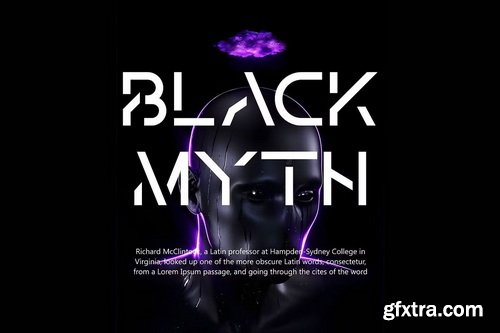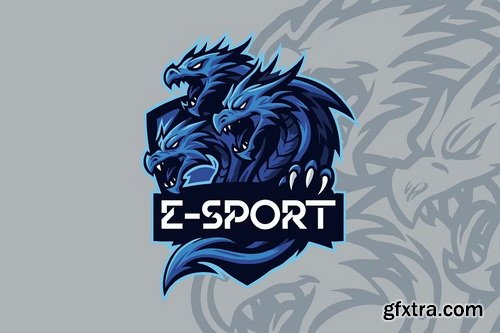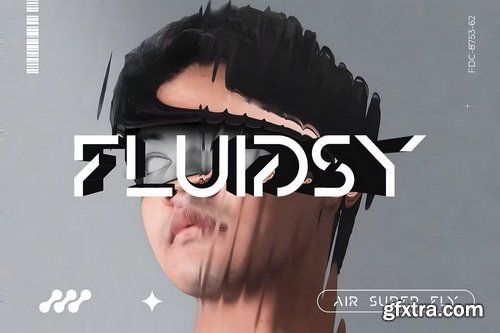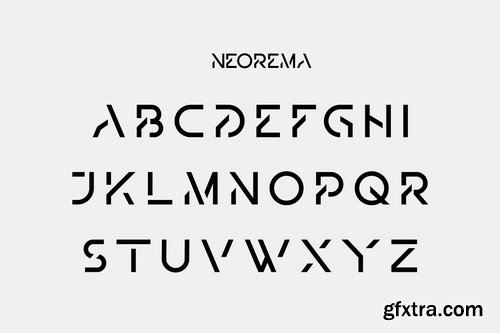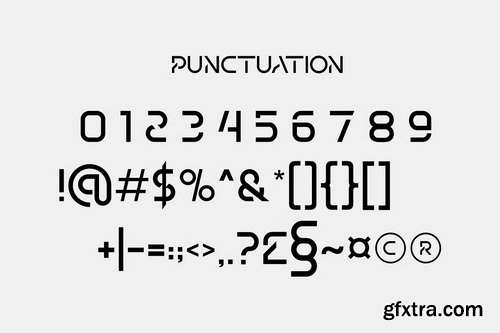
CreativeMarket - Airfly Futuristic Geometric Font
- Airfly is a futuristic geometric font with bold, clean, and modern characters designed specifically for digital branding needs. With its bold condensed sans serif letterforms, this font conveys a sense of technology, innovation, and visual power that is perfect for creating a standout identity.
As a designer, you need a versatile font that can instantly enhance the value of your work. Airfly is not just a futuristic font, but a relevant visual communication tool for